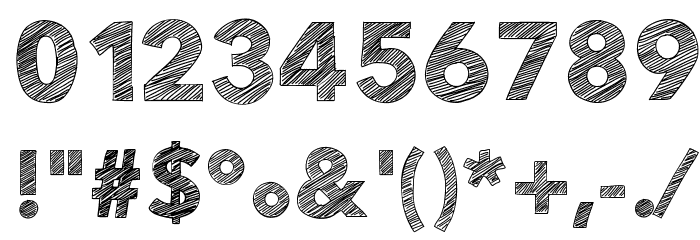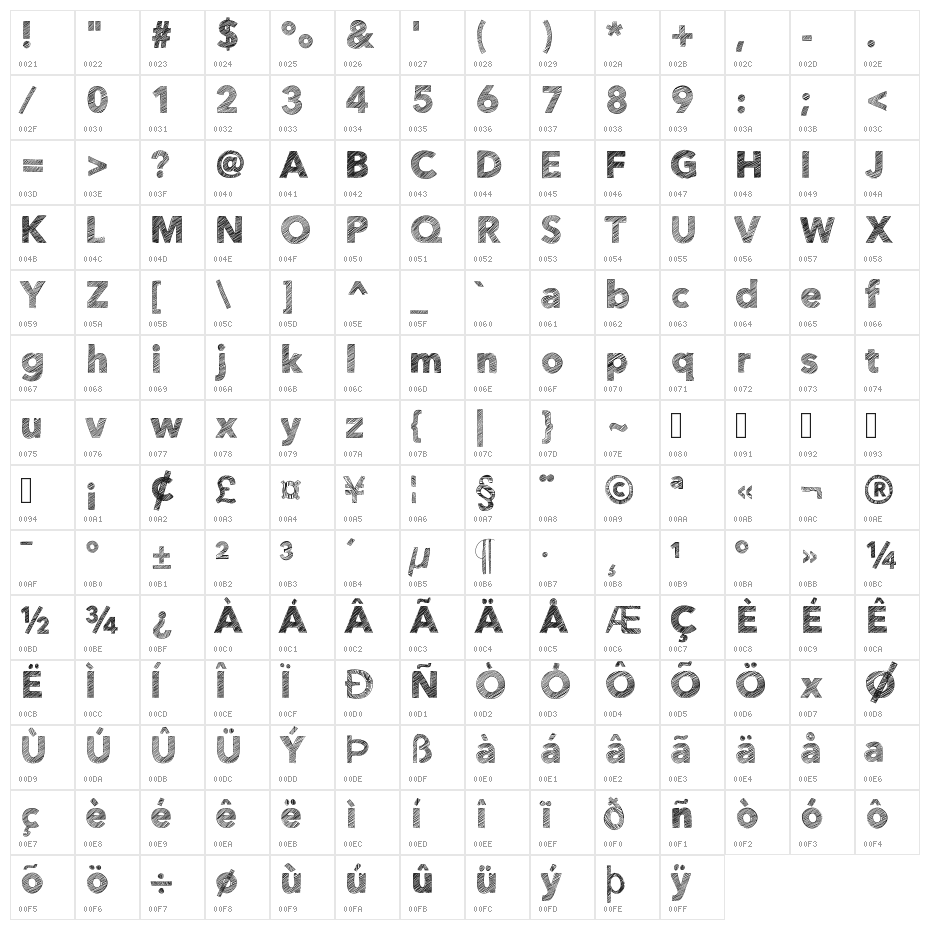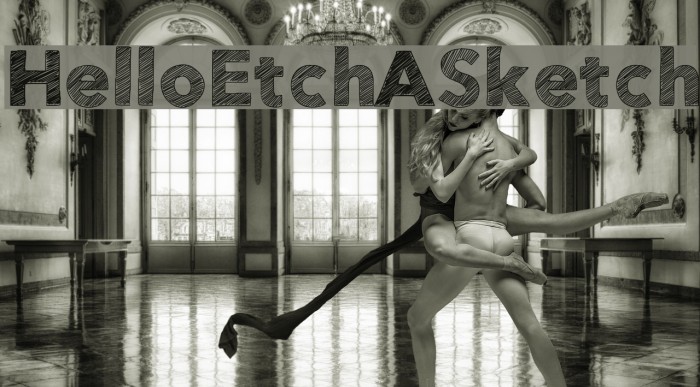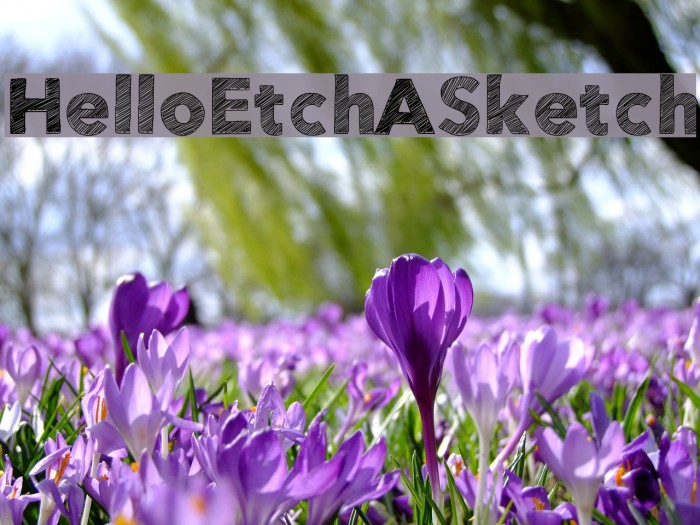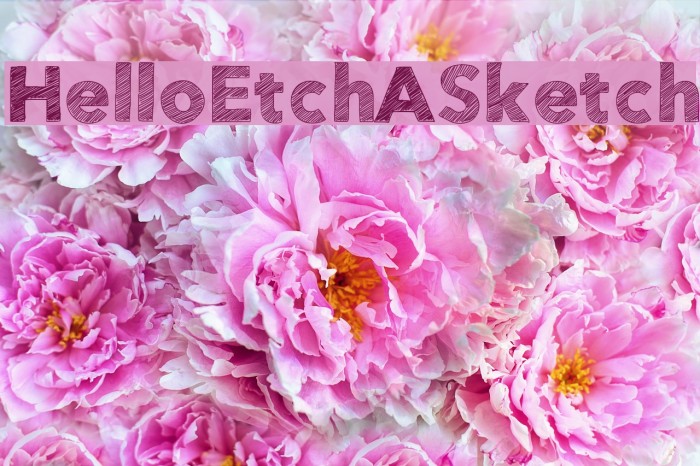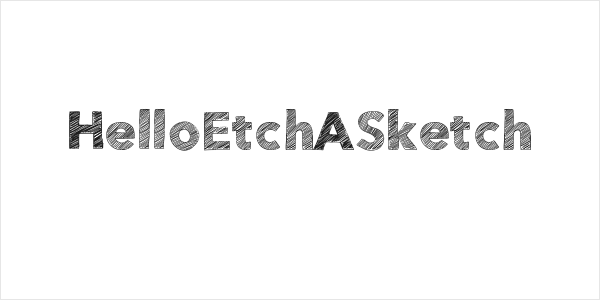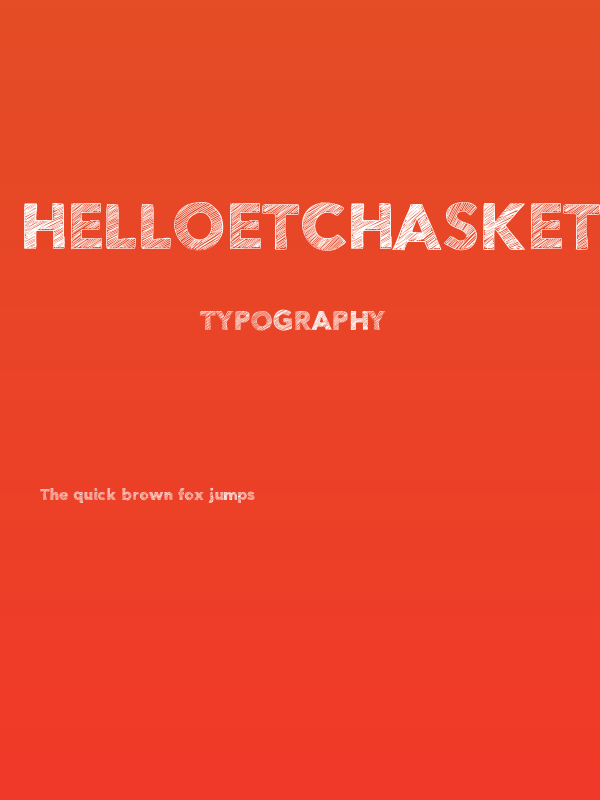
HelloEtchASketch Font
HelloEtchASketch Description
This font features a playful, sketch-like design with a hand-drawn appearance. Each character is filled with diagonal lines, creating a textured effect that mimics the look of a pencil sketch. The letters are bold and sans-serif, providing a modern yet whimsical feel. The uppercase and lowercase letters maintain consistent proportions, while the numbers and special characters follow the same stylistic approach. This font's unique texture and boldness make it stand out, adding a creative touch to any design project.
| Overall Style | Playful, Artistic |
| Proposed Projects | Ideal for children's book covers, playful branding, creative posters, and artistic invitations. |